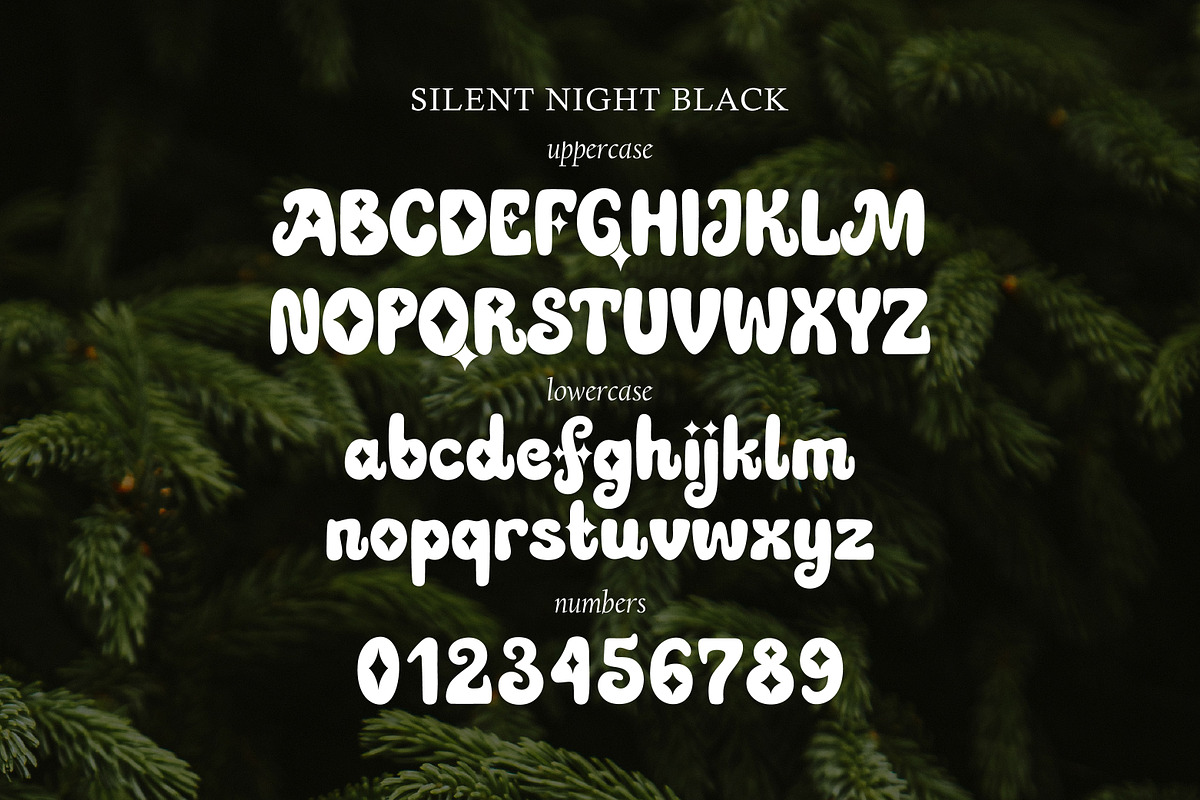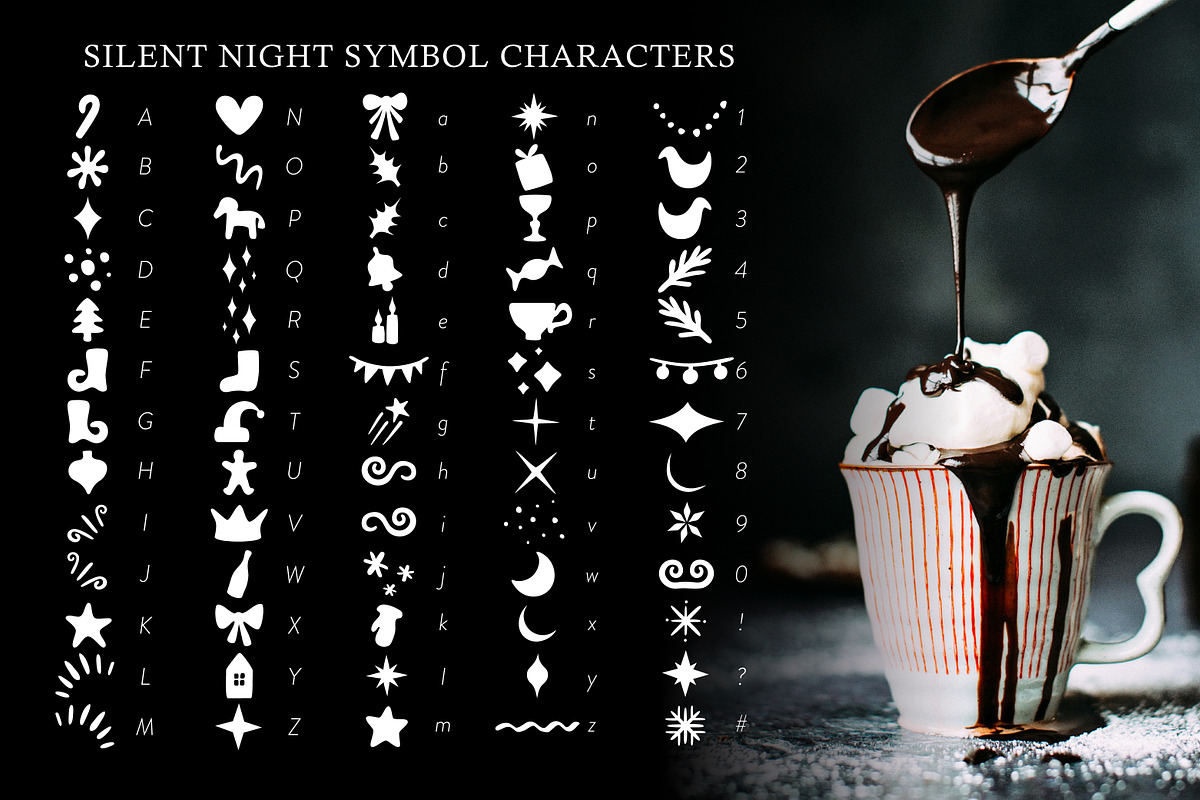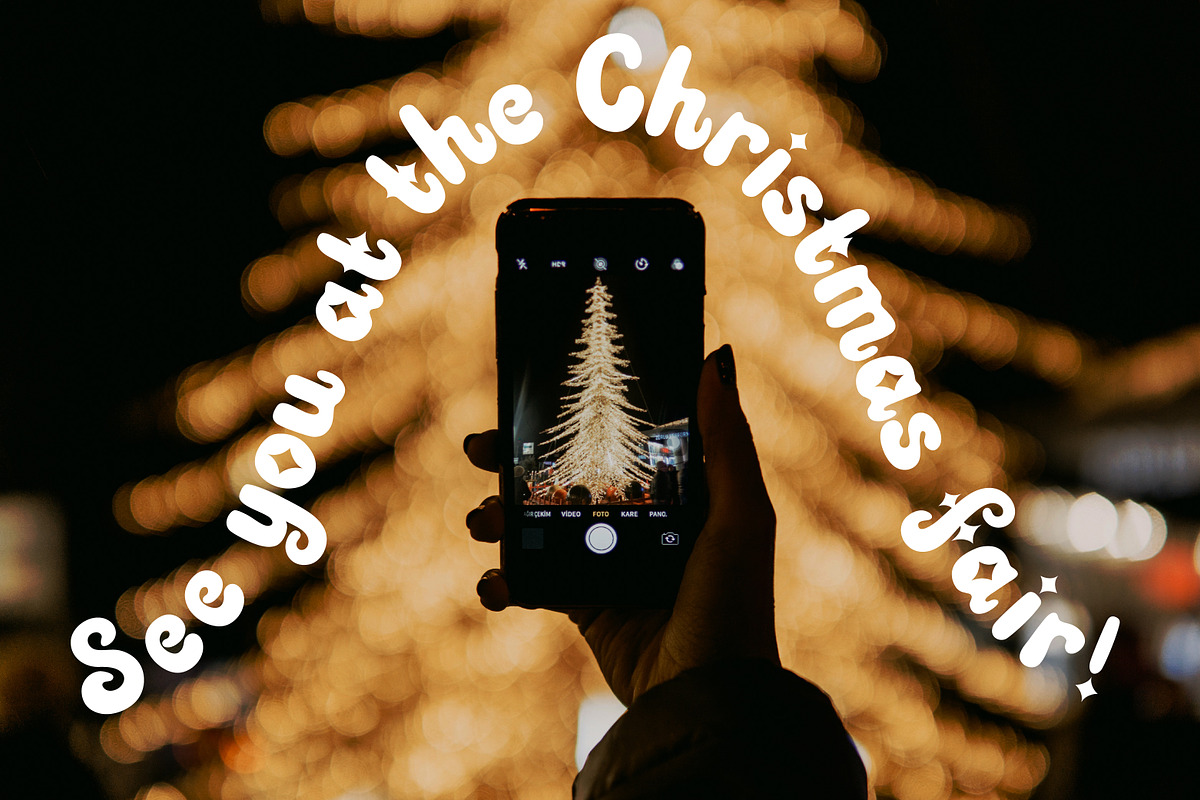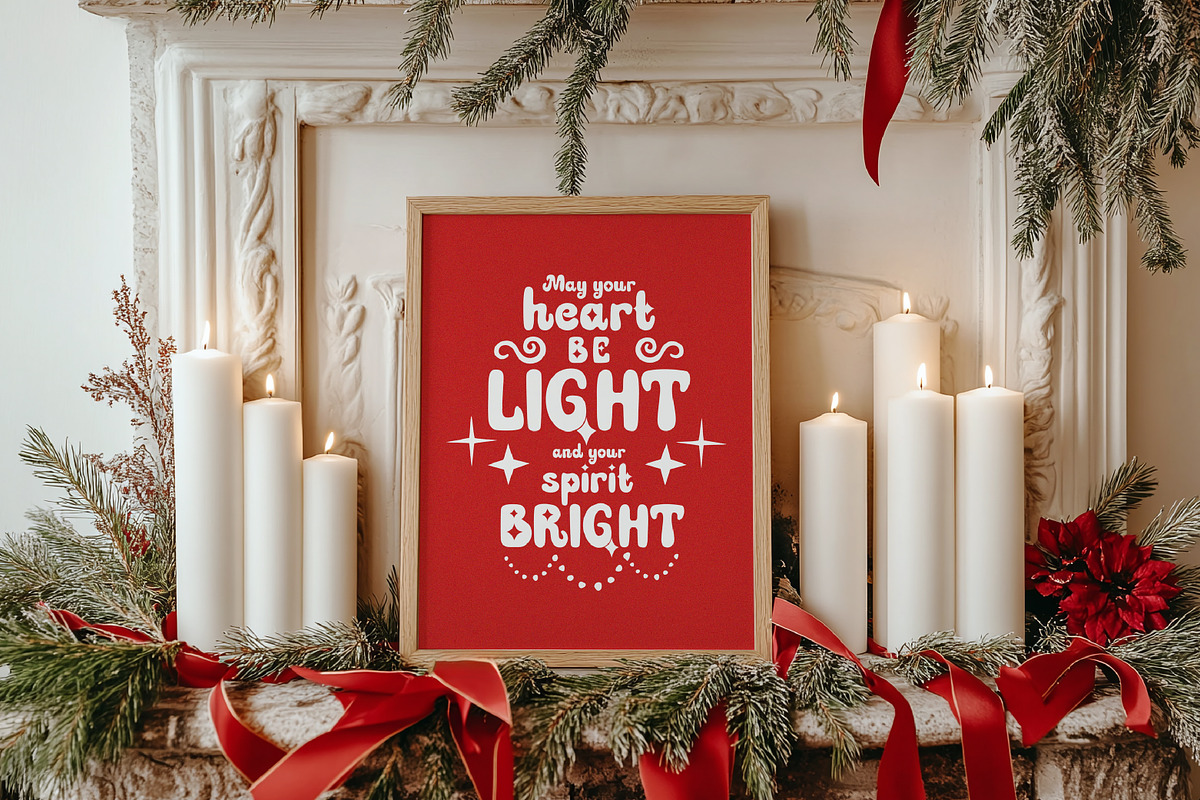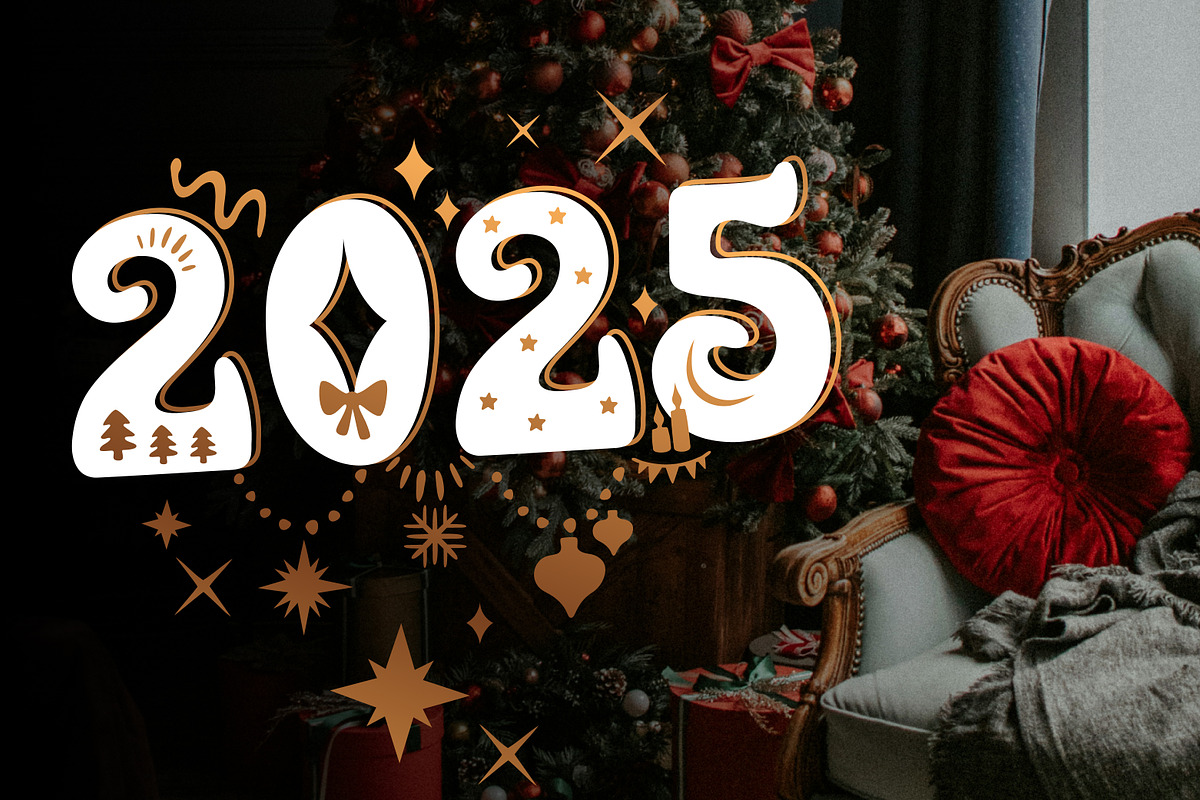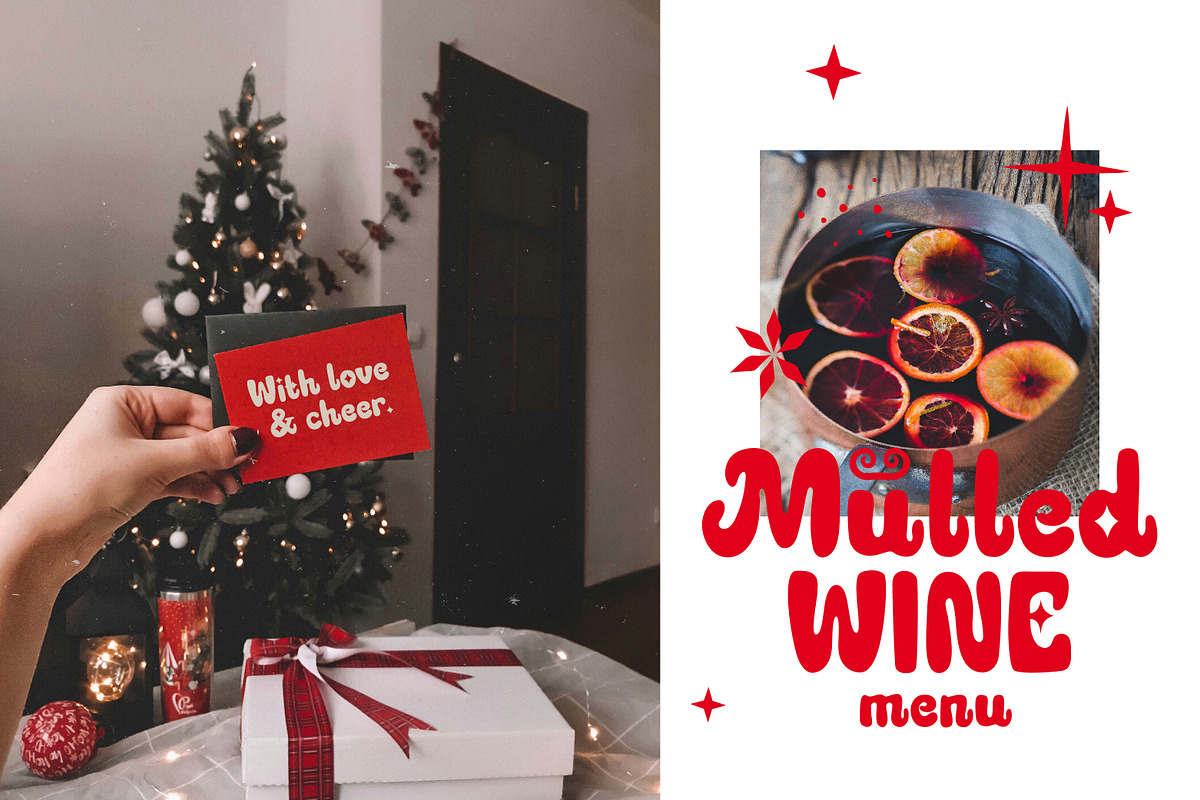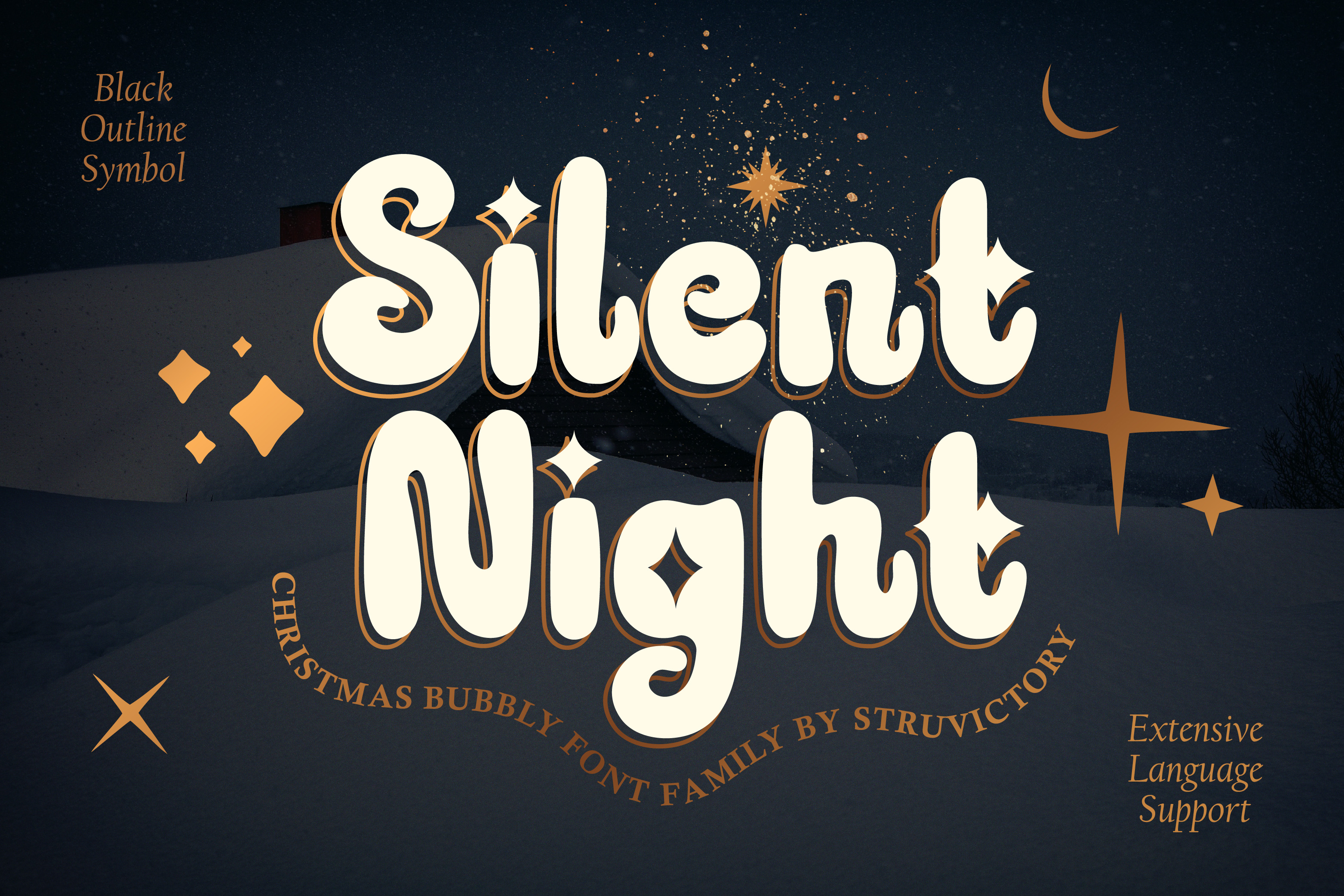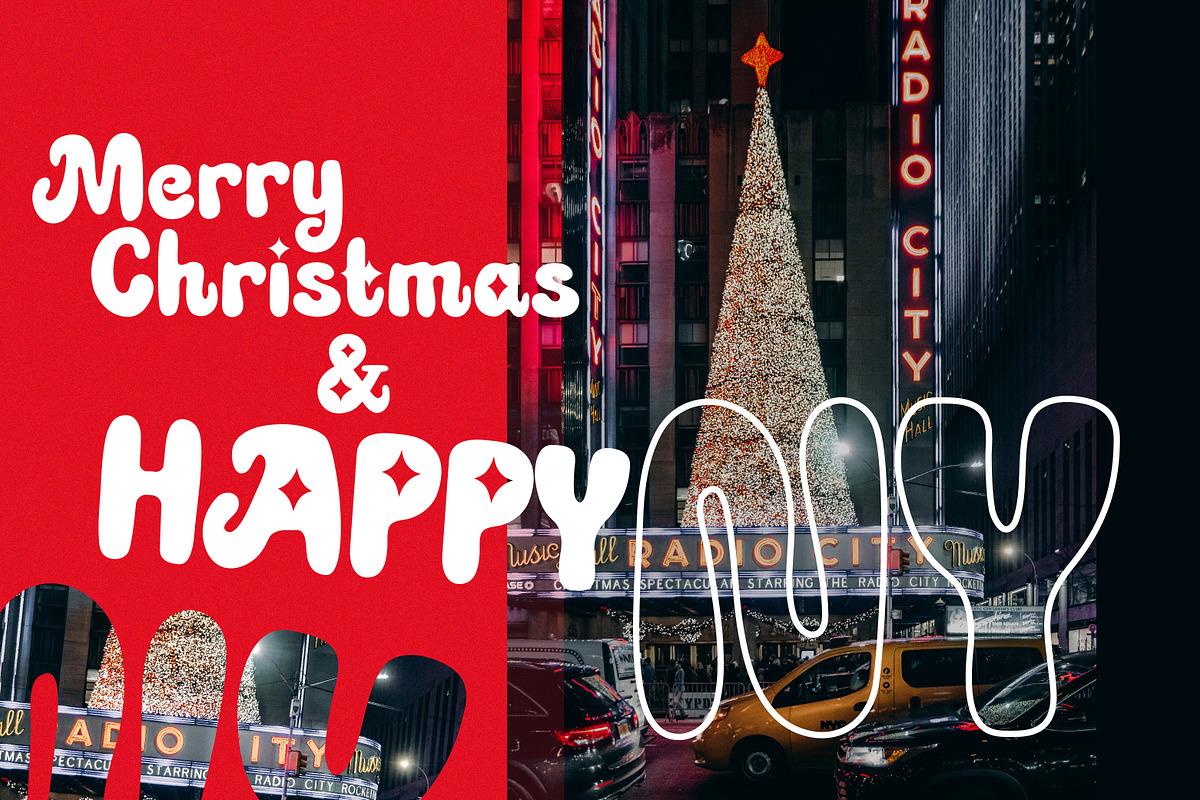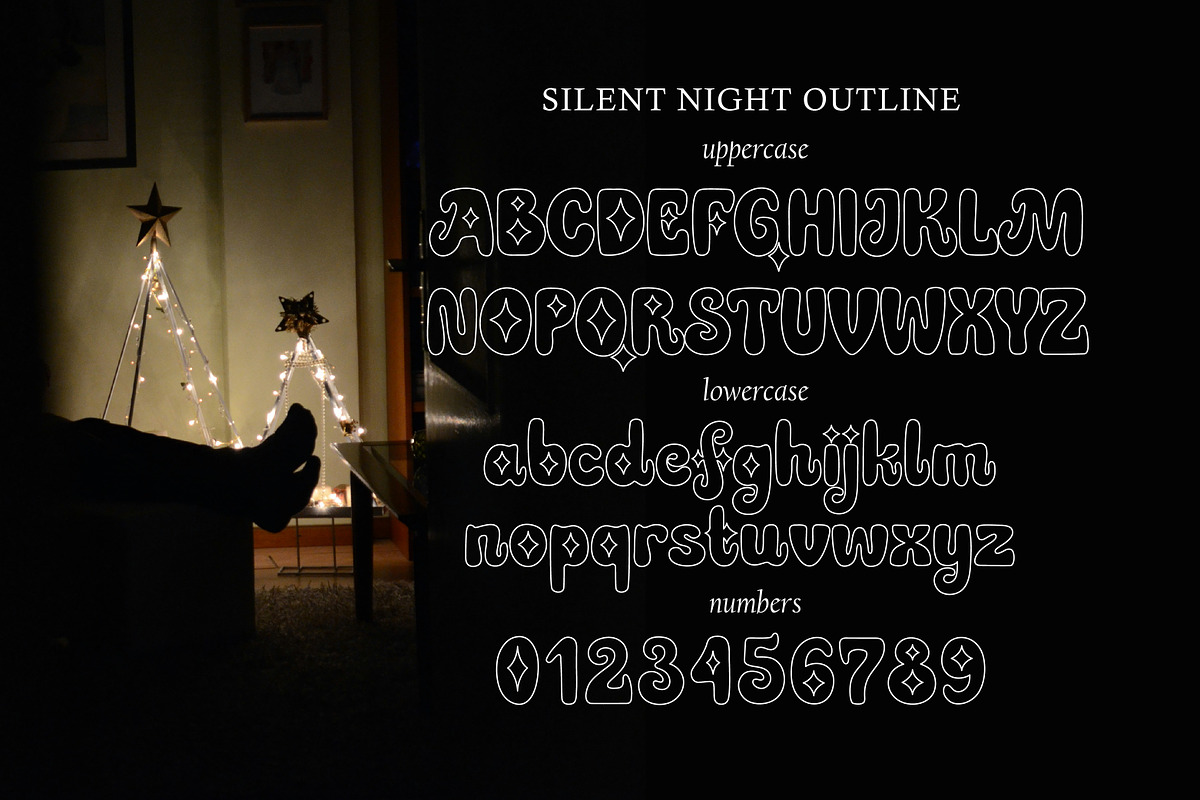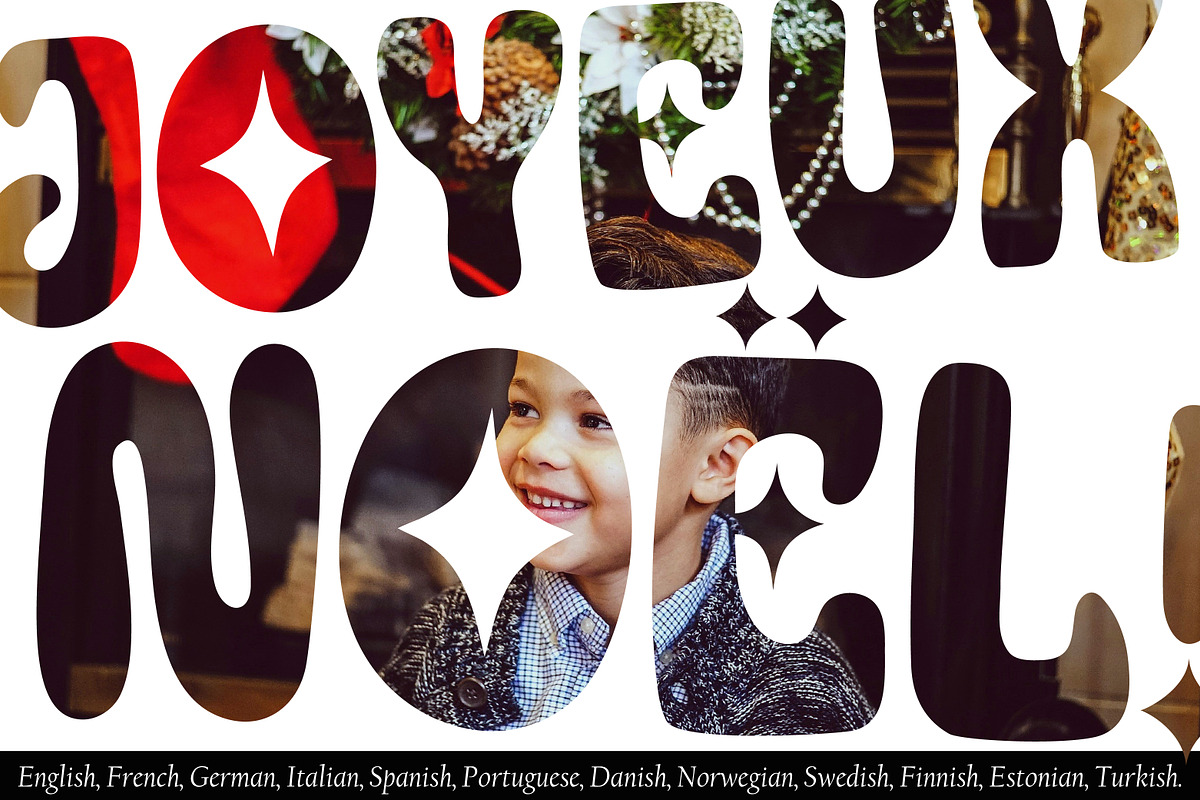
Silent Night Christmas Font Family
Silent Night font is the bubbly, bold, and cozy typeface you've been searching for Christmas design! With its playful curves, retro stars and whimsical design, this font exudes a sense of warmth and holiday cheer in the Y2K aesthetic. The font family includes three styles: black, outline, symbol. The symbols go well with the letters and create a wonderful New Year's mood. Embrace the spirit of the season with Silent Night font family and infuse your projects with a sense of whimsy and comfort.